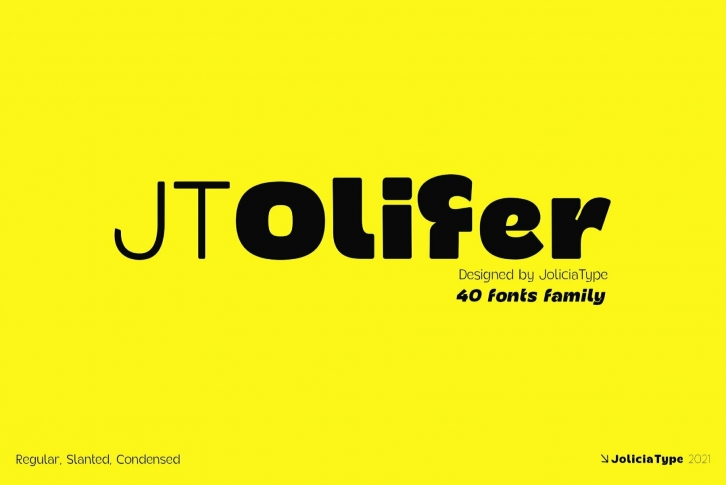
JT Olifer is family font of Jolicia Type designed by Laire Banyu Sandi Pawenang in October 2021, JT Olifer inspired by Modern Typography developed by us in our perspective, with a typeface detail in every corner we make more rounded, and give an inktrap accent to make unique impression special in every glyph, we really consider about aspect legibility, therefore we make family font amount 40 to assist the selection according to visual needs.
Font type of JT Olifer contains several nuances that combain aesthetic, contemporary and modern, furthermore we make some alternates glyph that have a friendly and subtle impression, for example 'f' the alternate of this name our font we designed is more circular and smooth.
JT Olifer has a total of 465 letters with regular, slanted and condensed styles support in 90 languages :